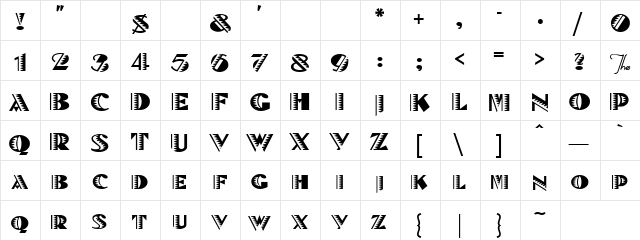
Decoro Kaze Regular Font Preview
Decoro Kaze Regular
Design Context for Decoro Kaze Typeface
Decoro Kaze is a composed and adaptable typeface that performs quietly and consistently across a wide range of design contexts.